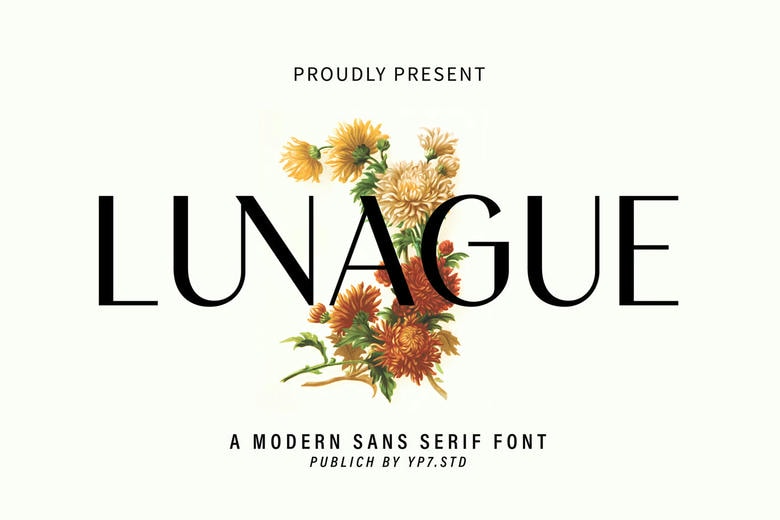
Lunague Font
Lunague is a font of Modern Sans Serif categories and has a simple design. Ideal for branding logo wedding items greeting cards fashion lookbook marketing promotion anytime you want to look formal but not stiff.
Lunague Sans Serif Font